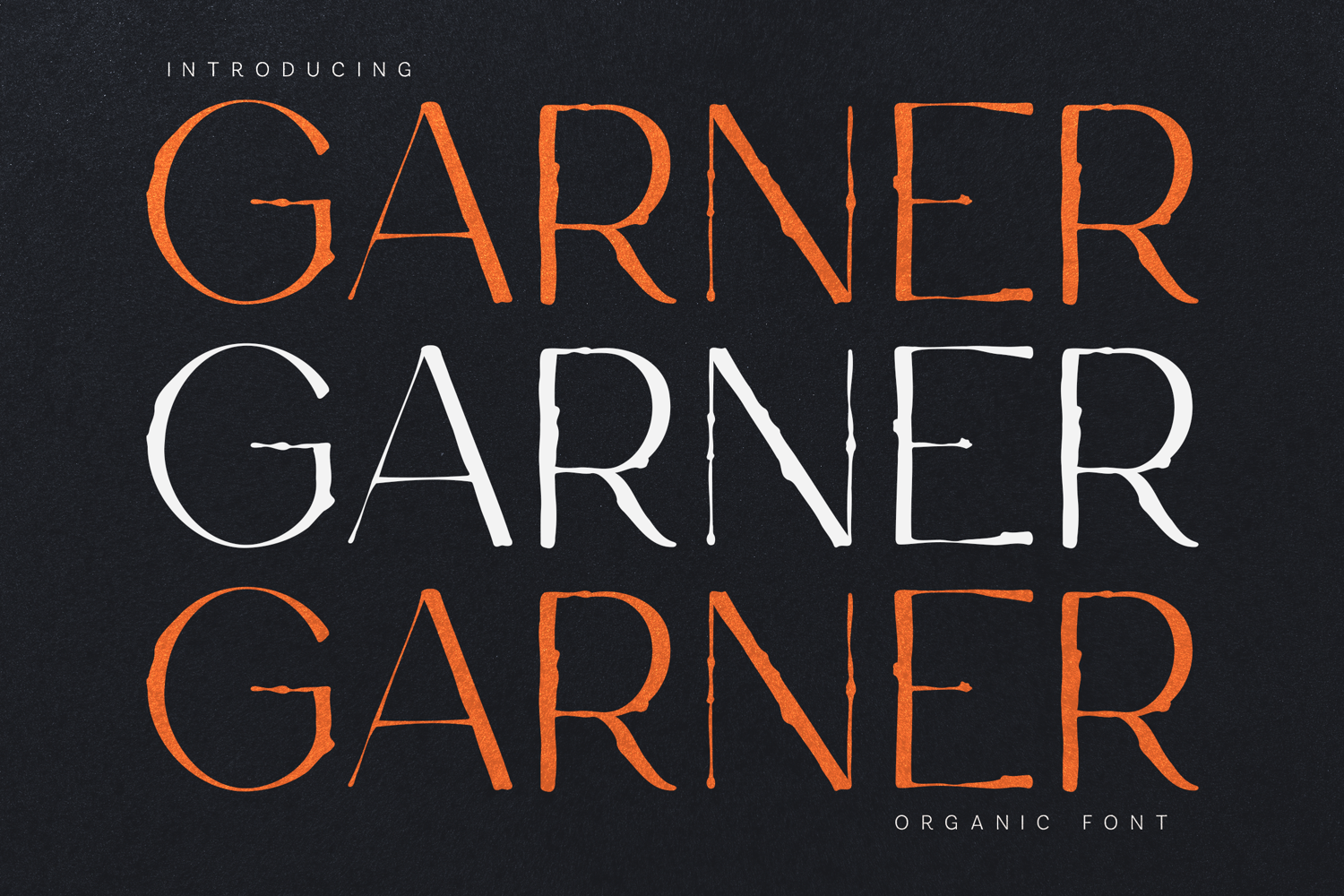
Garner Organic Handmade Serif Font
Introducing Garner, an organic serif font inspired by handcrafted lettering, natural imperfections, and timeless editorial typography.
Designed with intentionally uneven contours and subtle handmade details, Garner captures the beauty of authentic craftsmanship. Every character carries a naturally imperfect texture that adds warmth, personality, and a human touch while maintaining elegant readability.
The combination of refined serif construction and organic edges makes Garner equally suitable for luxury branding and rustic creative projects. Whether used for logos, packaging, editorials, book covers, restaurants, organic products, boutique brands, or artisan businesses, Garner delivers a distinctive visual identity with effortless character.
With extensive multilingual support and a carefully crafted character set, Garner is a versatile typeface built for designers seeking authenticity, sophistication, and originality.
- Organic Handmade Details
- Elegant Serif Construction
- Natural Textured Appearance
- Luxury Branding
- Organic Products
- Artisan Packaging
- Boutique Businesses
- Book Covers
- Editorial Design
- Restaurant Branding
- Coffee Packaging
- Wedding Stationery
- Cosmetics Packaging
- Social Media Graphics
- Logo Design
- Lifestyle Brands
- Premium Labels